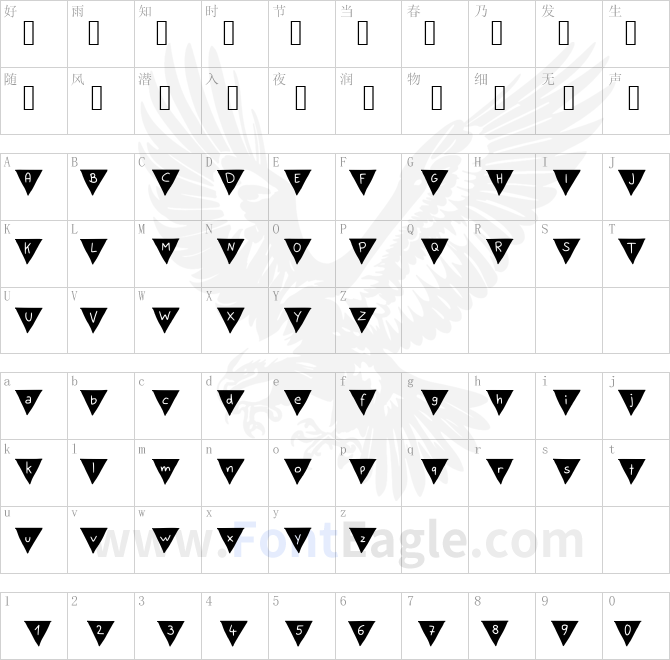
- Font name:Paper Banner
- Font Subfamily ID:FontForge 2.0 : PaperBanner-Bold Medium : 21-8-2014
- Font Full Name:Paper Banner Bold
- Postscript:PaperBanner-Bold
- Font Copyright:© by Janam